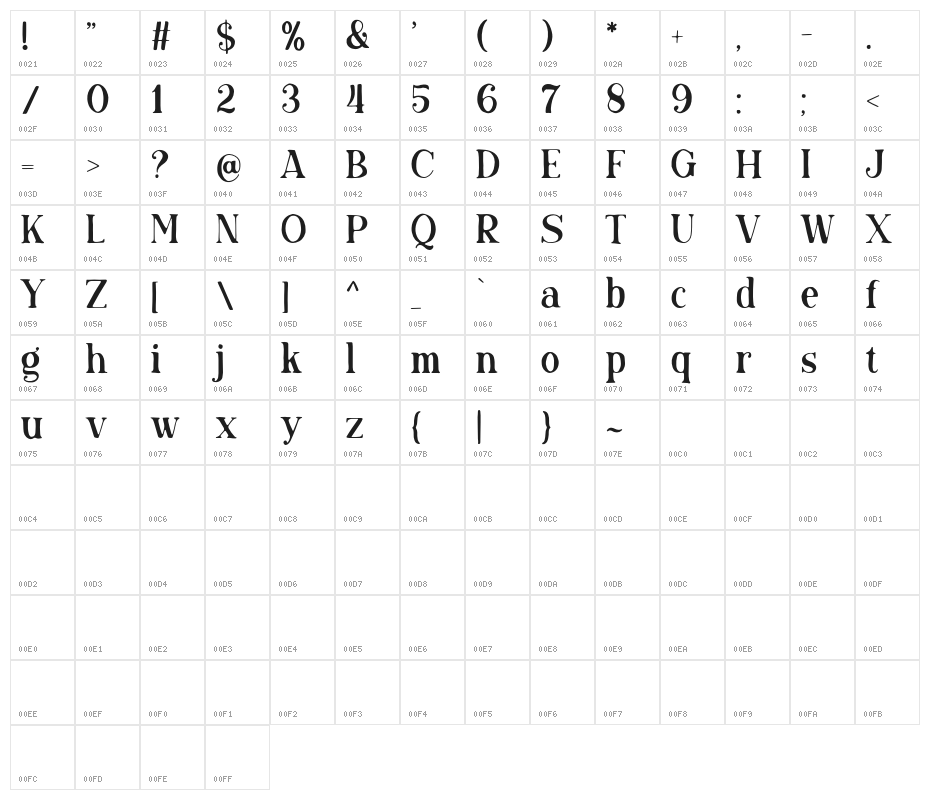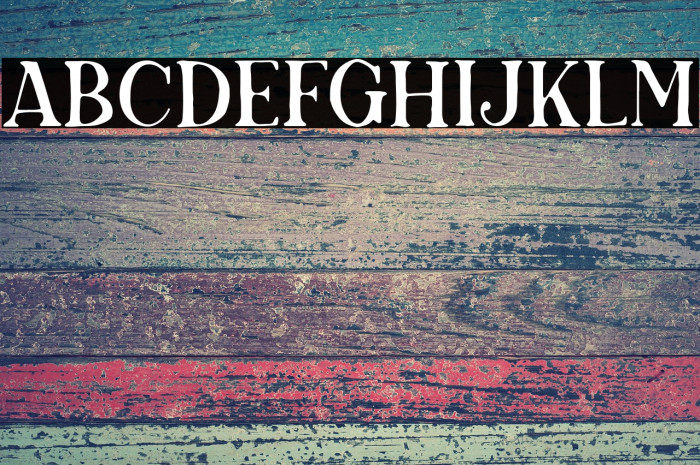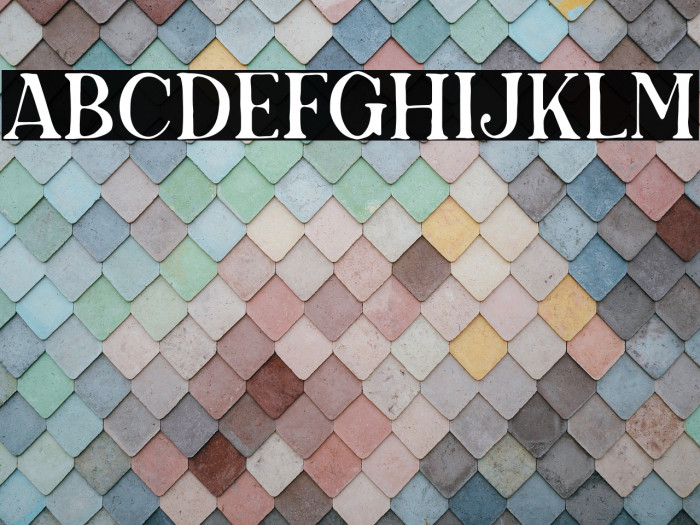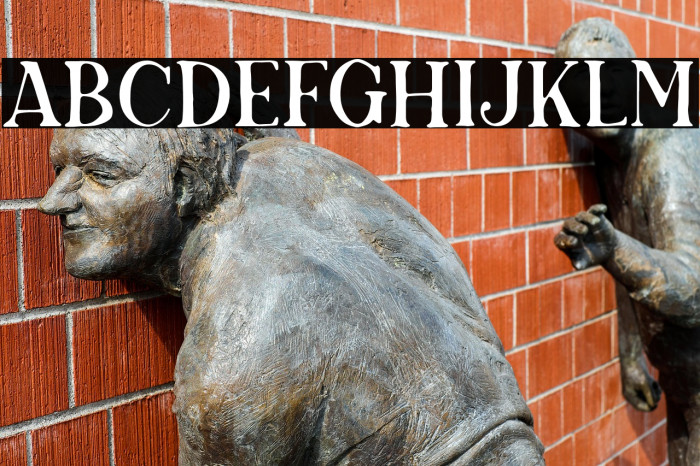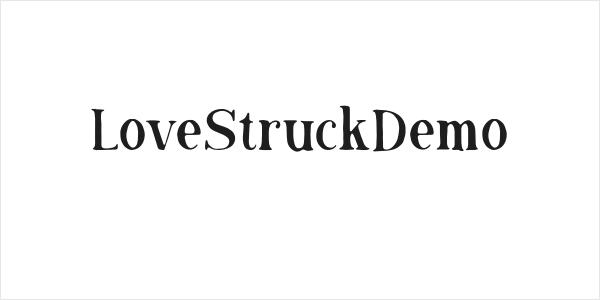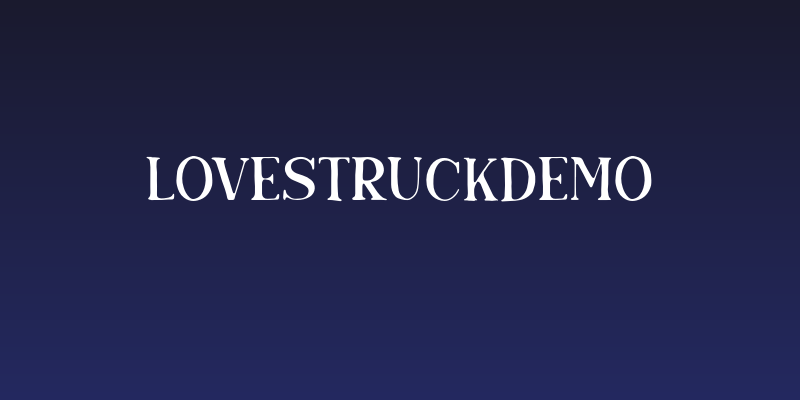
LoveStruckDemo Font
LoveStruckDemo Description
This font features a playful and whimsical design with a touch of elegance. The characters are bold and slightly condensed, with a unique flair that adds personality to each letter. The uppercase letters have a classic serif style, while the lowercase letters exhibit a more casual and handwritten feel. The numbers and special characters maintain the same playful aesthetic, making the font versatile for various creative projects. The overall style is a blend of classic and decorative elements, creating a distinctive and eye-catching appearance.
| Proposed Projects | Ideal for wedding invitations, greeting cards, playful branding, and decorative headlines. |